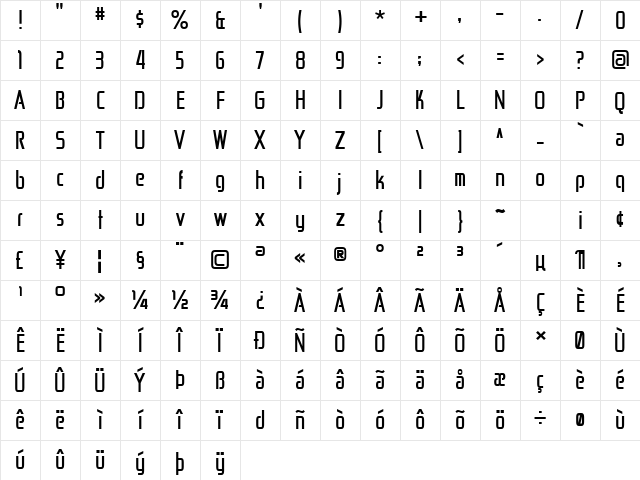
Zekton Cd Bold Free Font
Zekton Cd Bold
Zekton Cd Family
Design Context for Zekton Cd
Zekton Cd is a composed and adaptable typeface that performs quietly and consistently across a wide range of design contexts. Its bold stroke weight gives it real presence on the page.